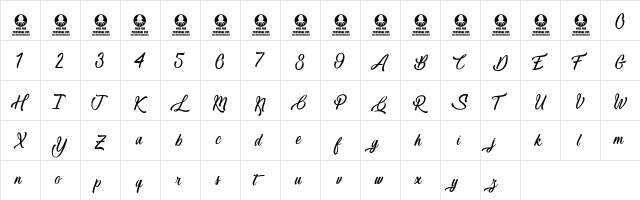
Lovely Quotes Regular
| Foundry | Octotype |
| Designer | Octotype |
Design Context for Lovely Quotes Typeface
Lovely Quotes is a composed and adaptable typeface that performs quietly and consistently across a wide range of design contexts.